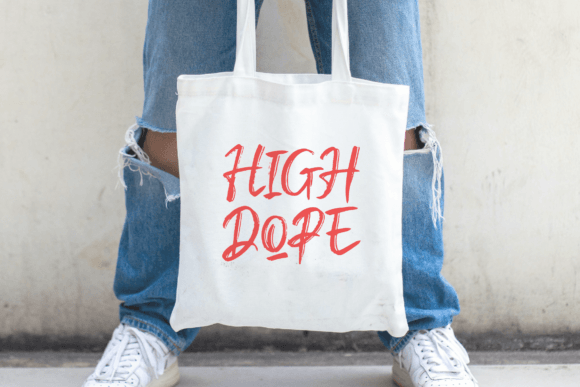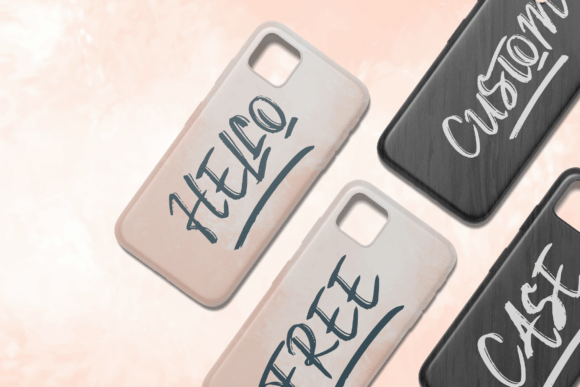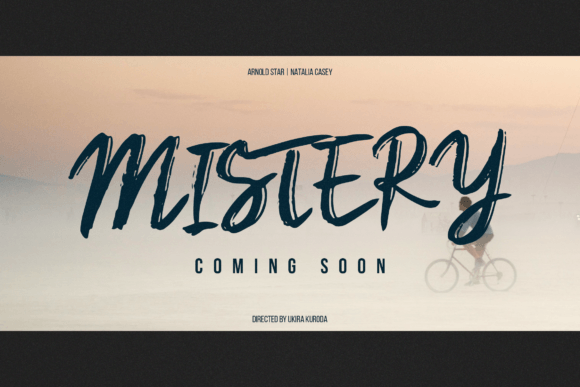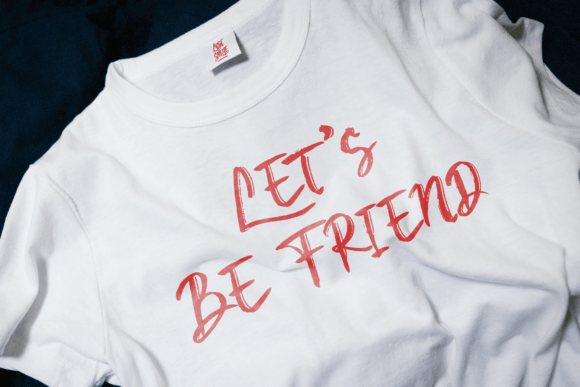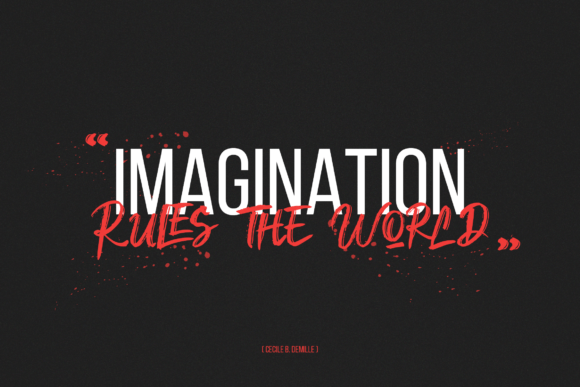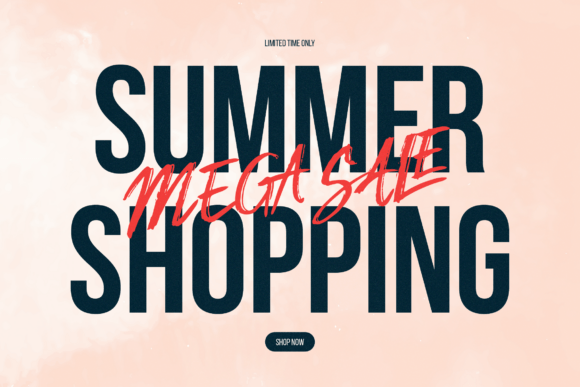
Introduction to Lost Smile Font
As designers, we’ve all been there – staring at a blank canvas, trying to come up with the perfect phrase to capture the essence of our latest creative project. It’s moments like these that we turn to our trusty design resources, searching for that special something that will give our work an extra oomph. And, if you’re anything like us, you’ve probably found yourself browsing through font collections, searching for the perfect typeface to elevate your design.
Enter the Lost Smile Font – a playful, hand-written brush font that’s guaranteed to put a smile on your face. With its bold, flowing letters, this font is perfect for adding a friendly, warm touch to any design project.
Key Features of Lost Smile Font
- High-quality design resource ideal for creative projects, offering a unique and emotive touch.
- Available in 4 different font styles, each with its own distinct character and expression.
- Perfect for designers seeking a free, high-quality design resource that adds a touch of personality to their creative projects.
Honest Review: Lost Smile Font
As a designer, I’m always on the lookout for unique and high-quality design resources. Recently, I came across the Lost Smile Font, and I’m excited to share my thoughts on it.
- ✨ Unique and playful style that’s perfect for creative projects
- ✨ High-quality glyphs and characters that are well-designed
- ⚠️ Limited font weights and styles, which might not be ideal for complex design projects
- ⚠️ Transparent background can sometimes be tricky to work with, especially when using it with other design elements
Overall, I’m impressed with the Lost Smile Font. It’s a great addition to any designer’s toolkit, especially for those working on creative projects that require a playful touch. While it may not be the most versatile font, its unique style and high-quality design make it a worthwhile download.
Tips for Getting the Most Out of the Lost Smile Font
To get the most out of the Lost Smile Font, consider the following tips:
- Use the font in a creative project to add a unique touch.
- Apply the font to a transparent background for a subtle effect.
- Combine the font with other high-quality design resources for a cohesive look.
The Lost Smile Font is ideal for various design projects, including:
- Marketing materials, such as brochures and flyers.
- Branding materials, such as logos and business cards.
- Digital products, such as e-books and presentations.
Alternatives to Lost Smile Font
Alegreya Sans is a high-quality, modern sans-serif font suitable for creative projects that require a clean and professional look. It features a transparent background, making it ideal for use on various design resources. Alegreya Sans is free to download and use for personal or commercial projects. When to use: For projects that need a contemporary and elegant feel.
Comparison to Lost Smile Font: Alegreya Sans has a more modern and sleek design compared to Lost Smile Font, which has a more whimsical feel. Alegreya Sans is also more versatile and can be used in a wider range of creative projects.
Montserrat is a geometric sans-serif font that is highly legible and suitable for use in various design resources. It features a transparent background and is free to download and use for personal or commercial projects. When to use: For projects that require a clean and modern aesthetic.